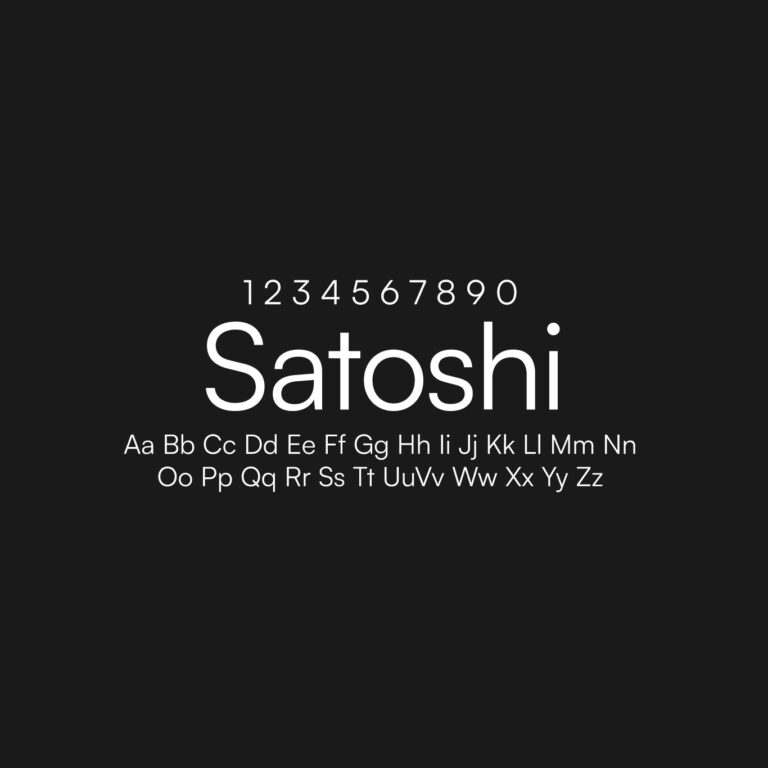
Satoshi is a modernist sans-serif typeface from Fontshare, a free fonts service by Indian Type Foundry. It combines clean grotesque letterforms with geometric details, giving it a contemporary appearance that works well for branding, websites, app interfaces, editorial layouts, posters, presentations, landing pages and digital product design.
Font Name: Satoshi
Font Type: Sans Serif
Category: Modernist Sans Serif / Grotesque Sans Serif
Visual Style: Clean, modern, geometric, professional, readable
Best For: Branding, websites, UI design, app interfaces, editorial layouts, posters, presentations and digital products
Designer: Indian Type Foundry / Fontshare